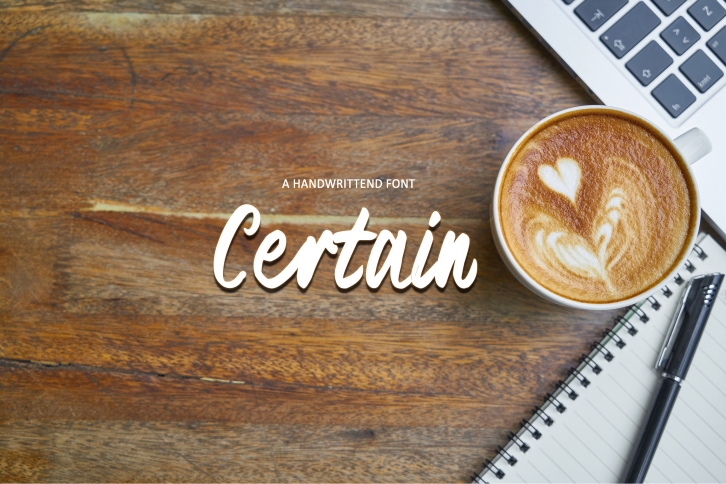
Certain Font is a fun bold and italic handwriting font, fresh & modern style. Certain Font suitable for logo, branding, greeting card, poster and any design that you create.